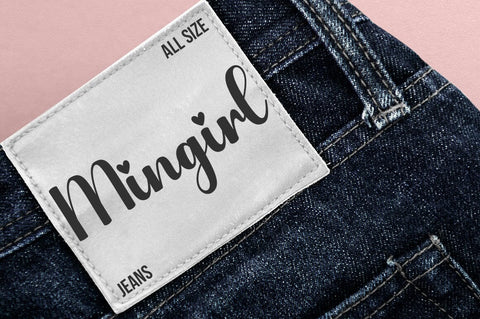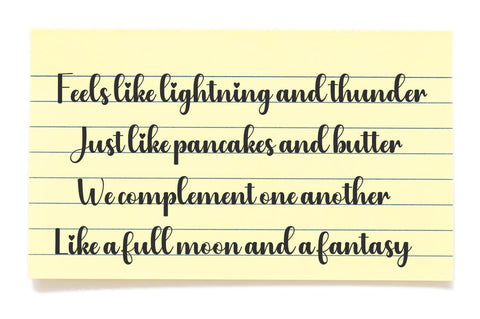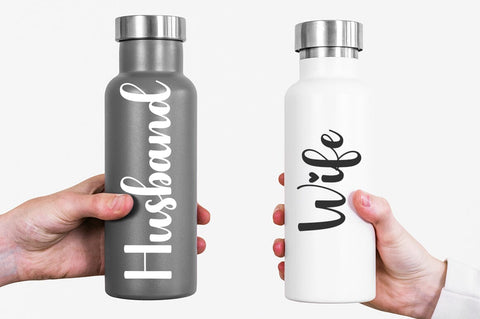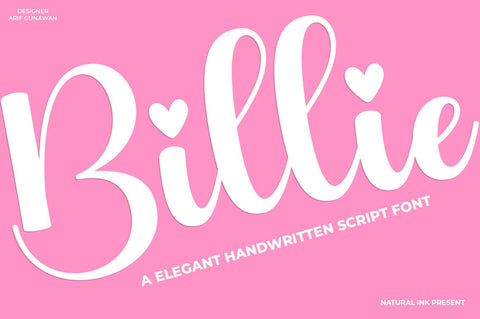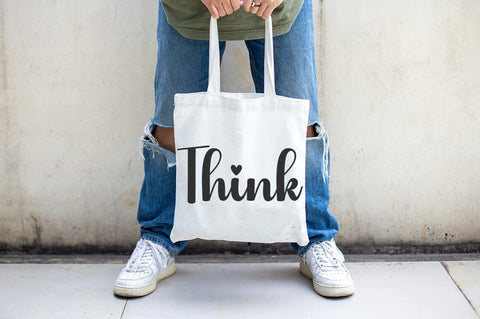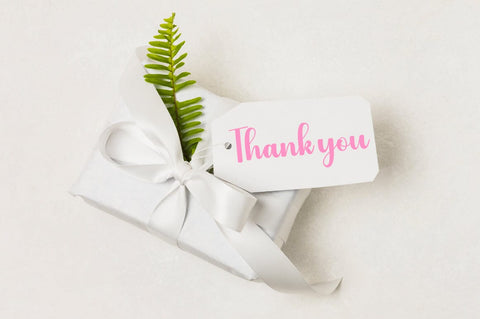
Billie
Steeped in contemporary elegance, Billie Script marries casual allure with distinctive calligraphy flair. Its beauty is punctuated by the inclusion of a graceful swash, enhancing its artistic appeal. The versatility of Billie Script is boundless, seamlessly weaving into numerous applications. It effortlessly transforms logos into works of art, bestows character to product packaging, and breathes romance into wedding invitations. Its charm also unfolds in branding, headlines, and signage, while labels and signatures penned in this font strike a lasting impression. Book covers, posters, and quotes adorned with Billie Script echo sophistication, beckoning viewers to take a closer look.